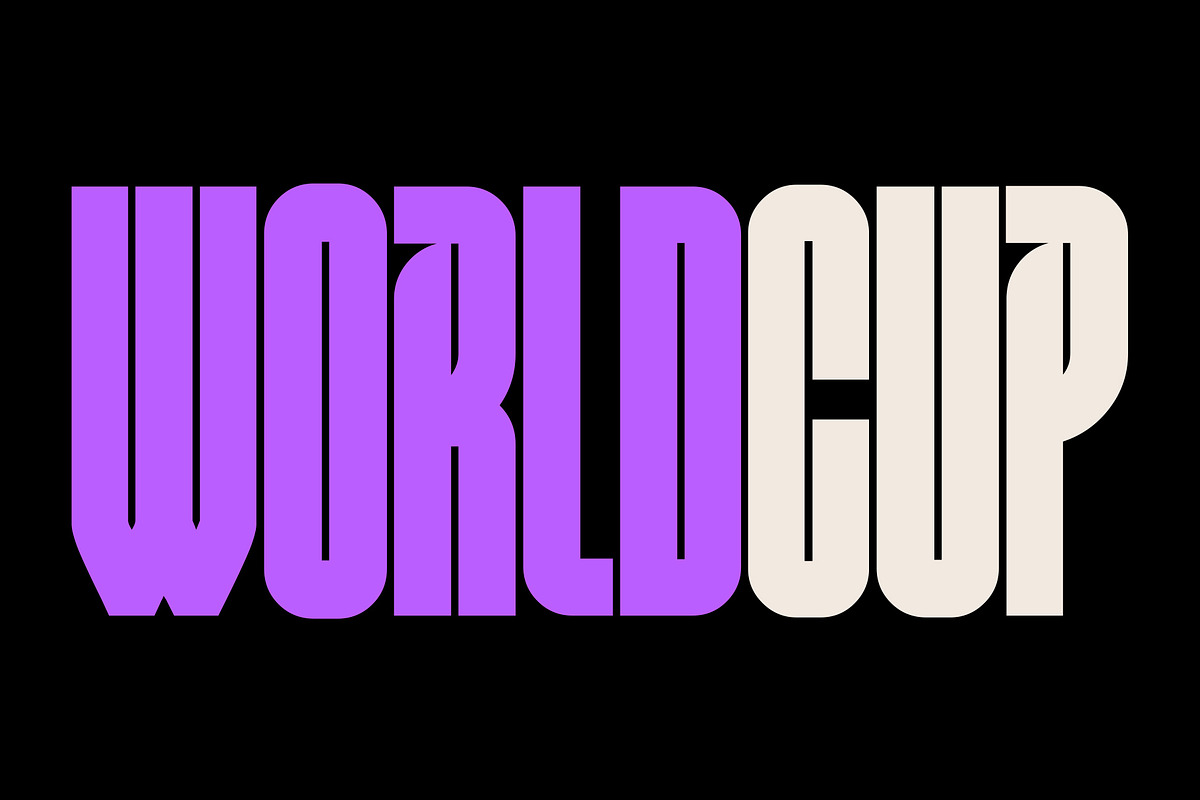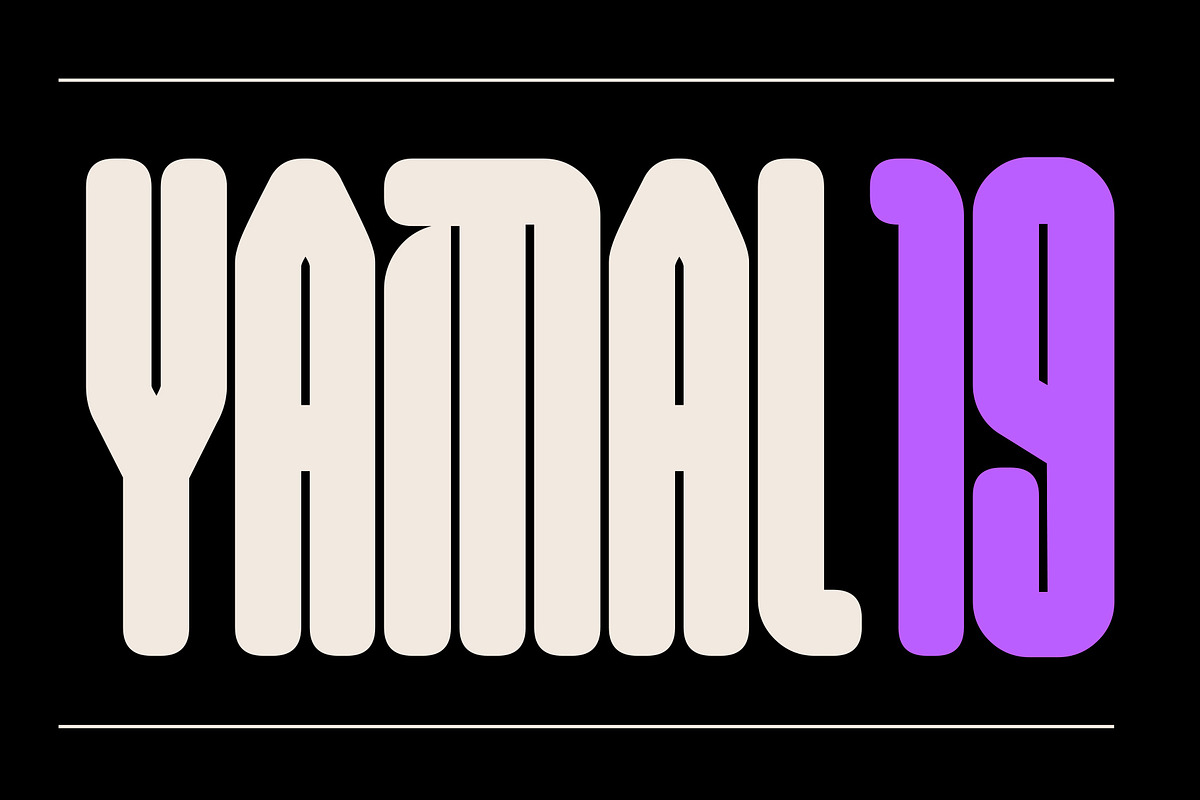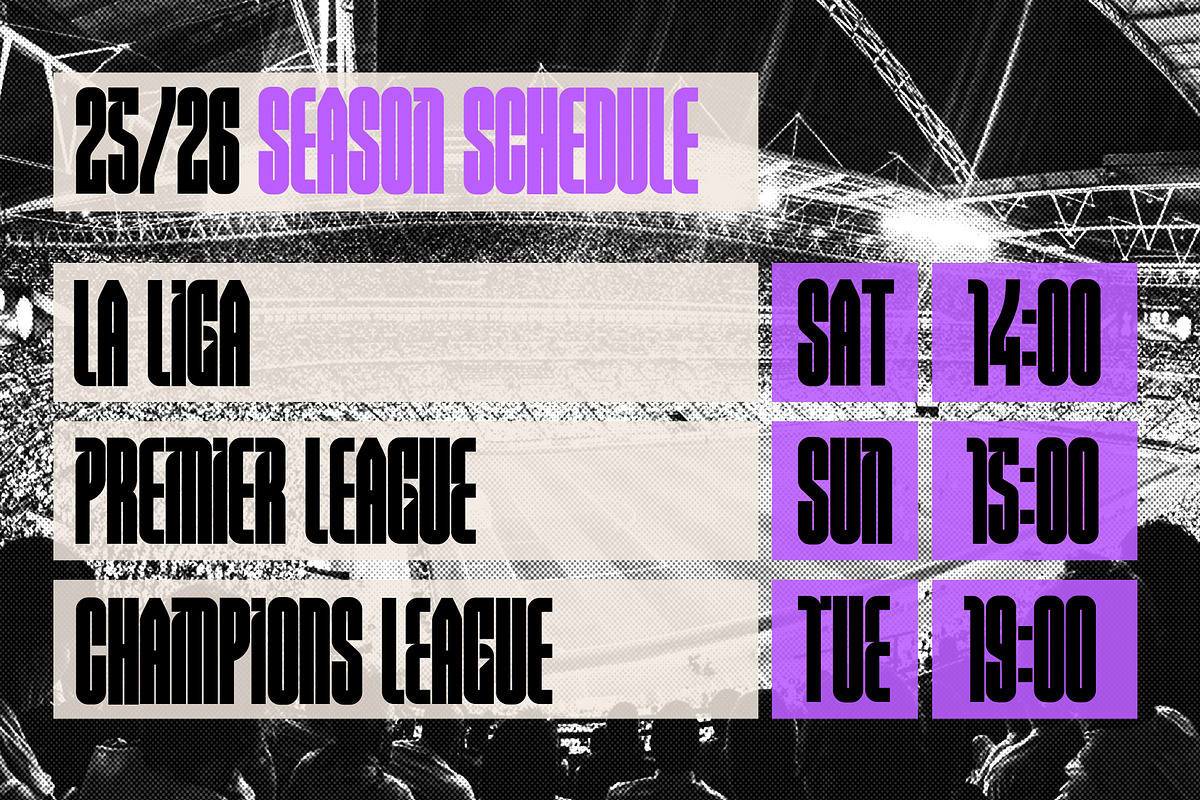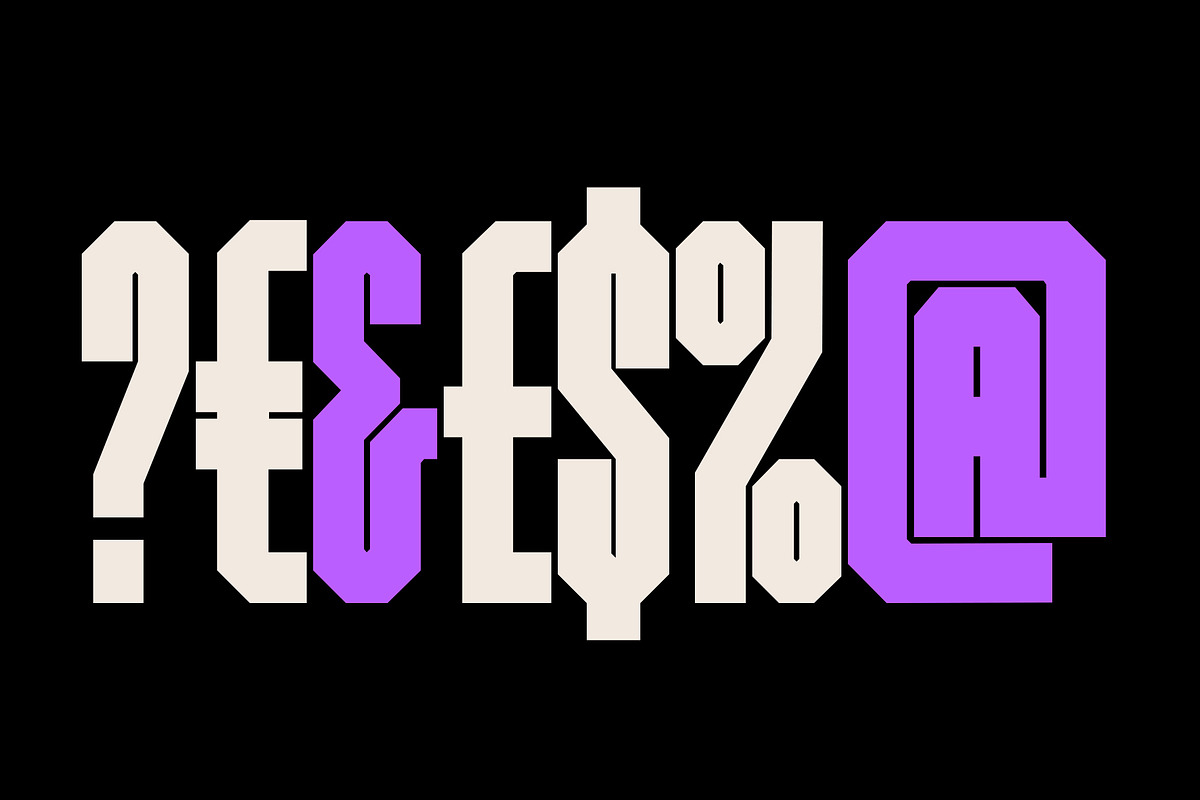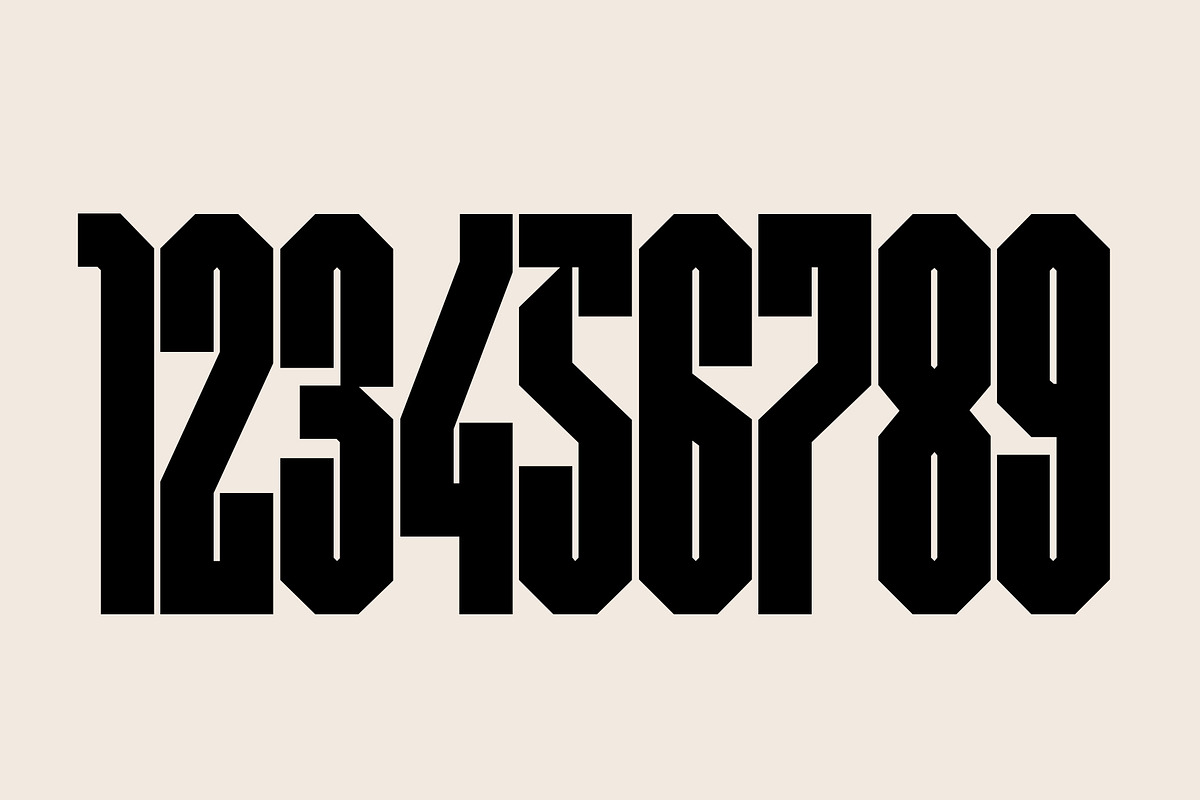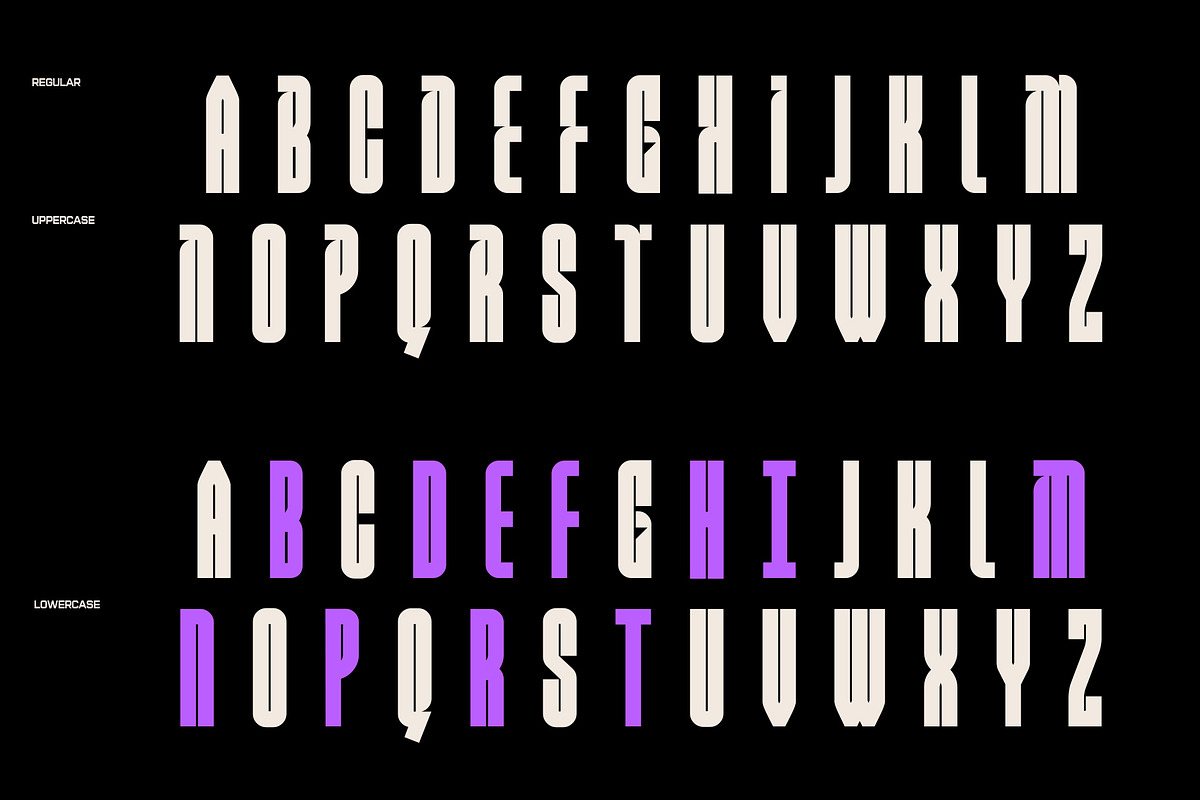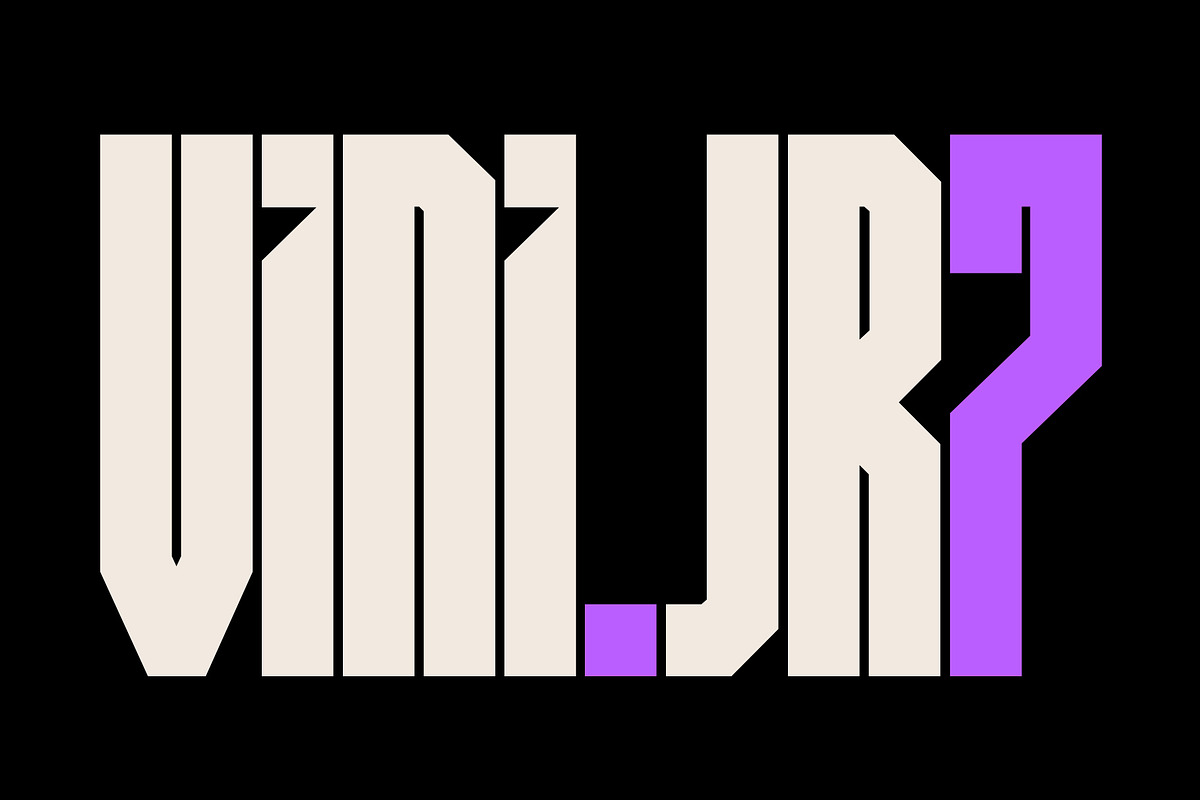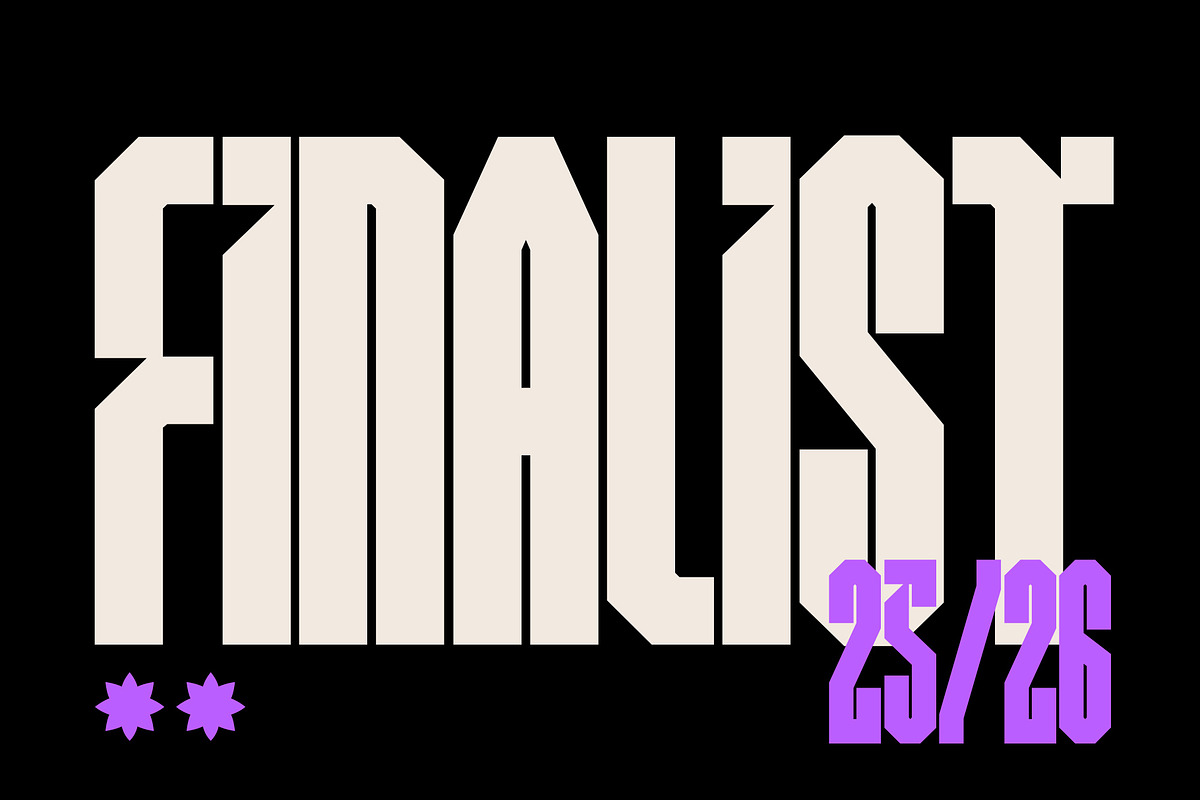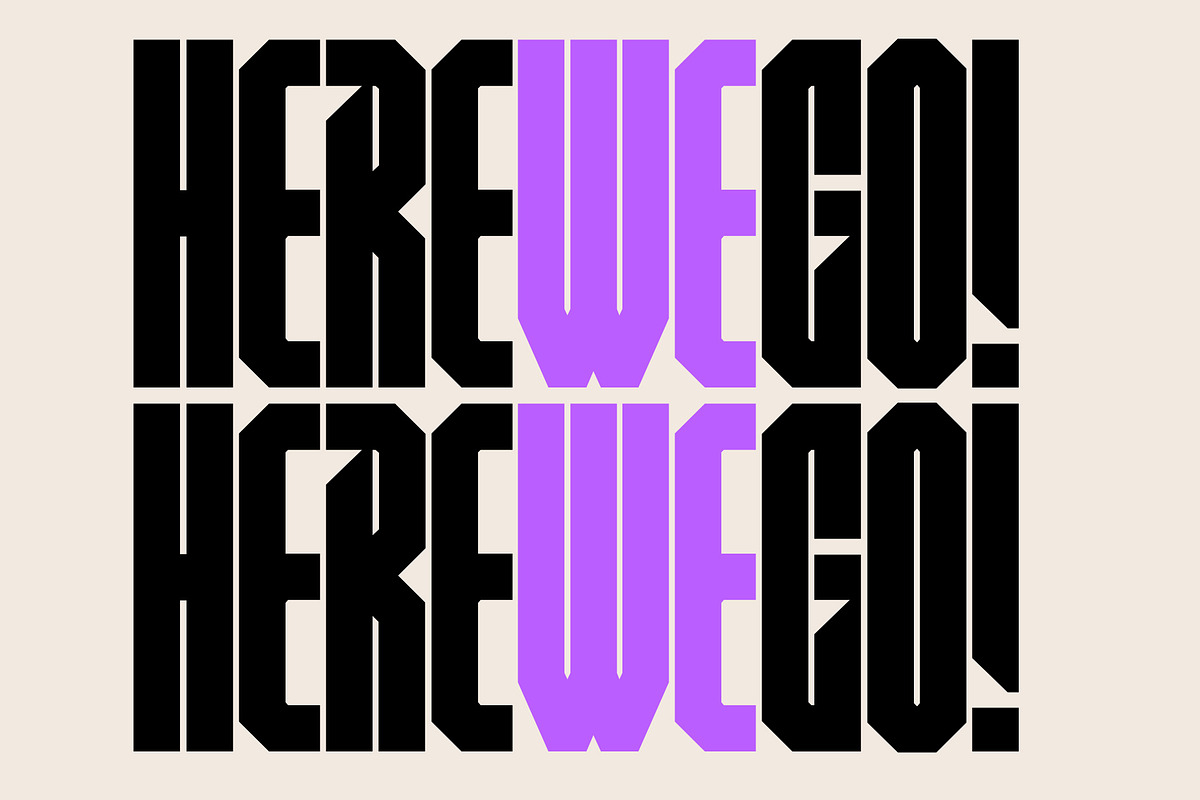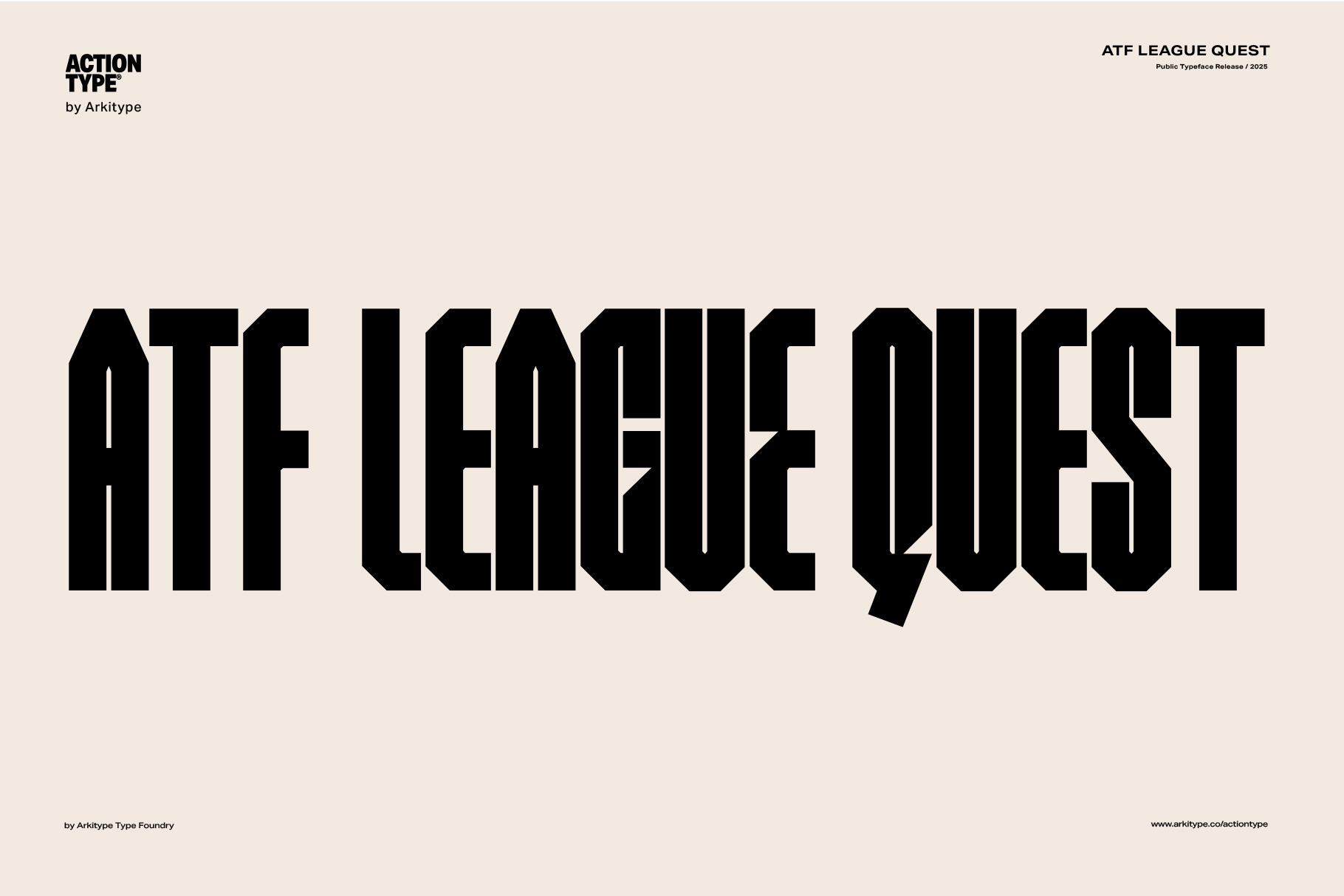
ATF League Quest - Sports Font
Unleash the Spirit of the Game with ATF League Quest Are you ready to elevate your sport related design to championship status? Introducing ATF League Quest, the the typeface crafted to capture the raw energy, passion, and triumph of the beautiful game.
Bold & Dynamic Style: Inspired by classic football aesthetics, [Your Typeface Name Here] features a powerful, condensed design with sharp angles and a commanding presence. Each character embodies the strength and determination of a world-class athlete, ensuring your message stands out like a match-winning goal. Discover a wealth alternates that allow for creative flexibility by using Upper or Lowercase. The character sets are built to perfectly convey the excitement of every moment on and off the pitch.
Whether you're designing for a stadium screen or a social media graphic, ATF League Quest maintains its impact and readability across various sizes and applications, ensuring your message always hits the back of the net. • Team Branding & Logos: Create iconic identities for clubs, leagues, and fan groups that resonate with power and passion. • Matchday Promotions: Design electrifying posters, flyers, and digital ads for upcoming games, tournaments, and events. • Merchandise & Apparel: Produce eye-catching designs for jerseys, t-shirts, scarves, and other fan gear that celebrates the sport. • Broadcast & Digital Media: Enhance on-screen graphics for sports broadcasts, highlight reels, and social media content with a professional and dynamic edge. • Sporting Publications: Bring articles, magazines, and statistics to life with a typeface that understands the rhythm of the game. • Esports & Gaming: Extend your reach into the fast-paced world of virtual football with a font that's both modern and impactful.